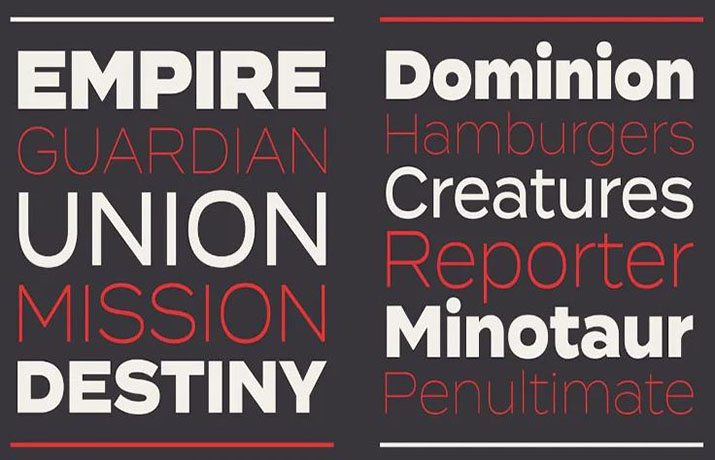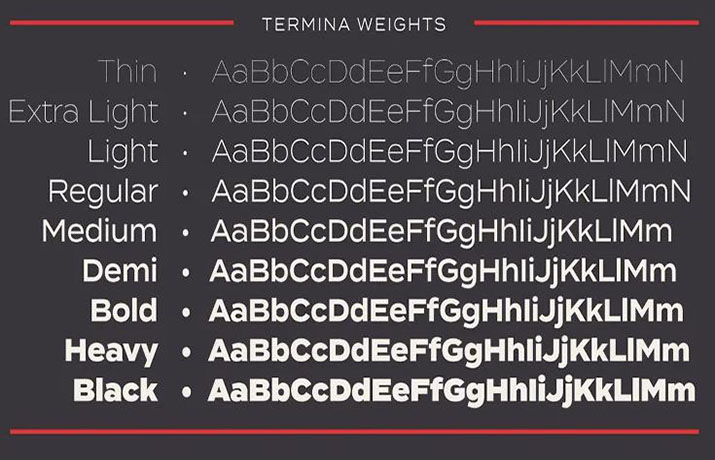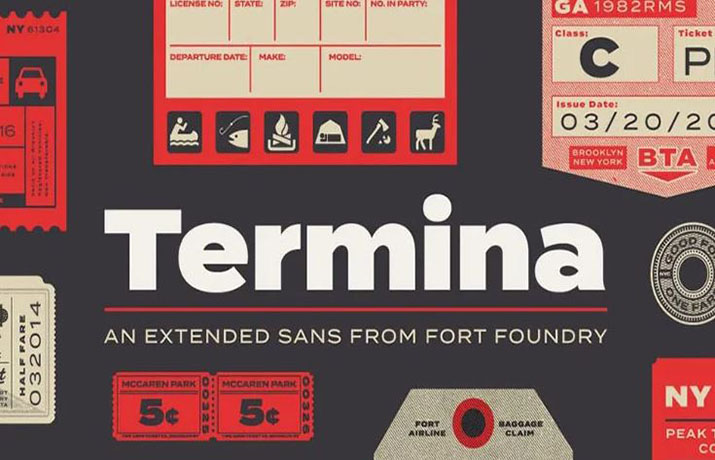
Termina Font is a bold sans serif typeface that is excellent for titles, branding, headlines, and more. It was designed by Mattox Shuler and published by Fort Foundry.
The family’s high x-height and wide letterforms help retain legibility and readability at smaller sizes. And the space between letters is a little bit low compared to the standard size.
Its powerful and thick style makes it an excellent choice for a wide range of purposes such as branding, headlines, logos, social media posters, flyers, titles, headers, advertisements, and more.
“Termina typeface comes in 9 different weights that possess Open Type features. This font includes 743 glyphs, numbers, and 10920 binary stored kerning pairs. Moreover, it also supports 34 languages.”